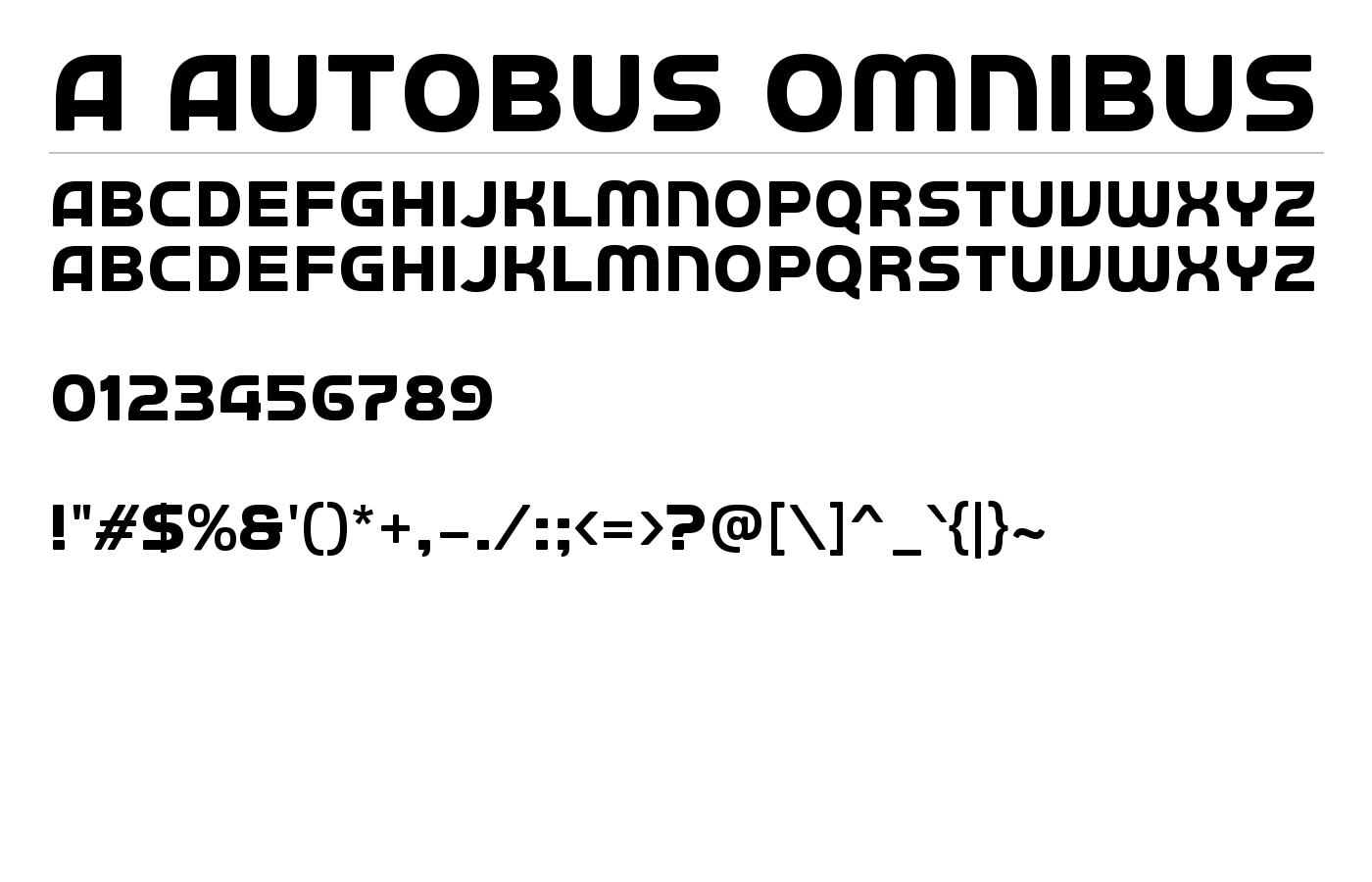
Autobus Omnibus is a bold, geometric sans serif font with a modern and slightly futuristic feel. Its squared shapes and thick strokes create a strong, sturdy appearance, making it ideal for headlines, logos, and branding projects that need a confident and contemporary look. This font works well in tech, sports, or urban-themed designs where clarity and impact are key.
a Autobus Omnibus Font